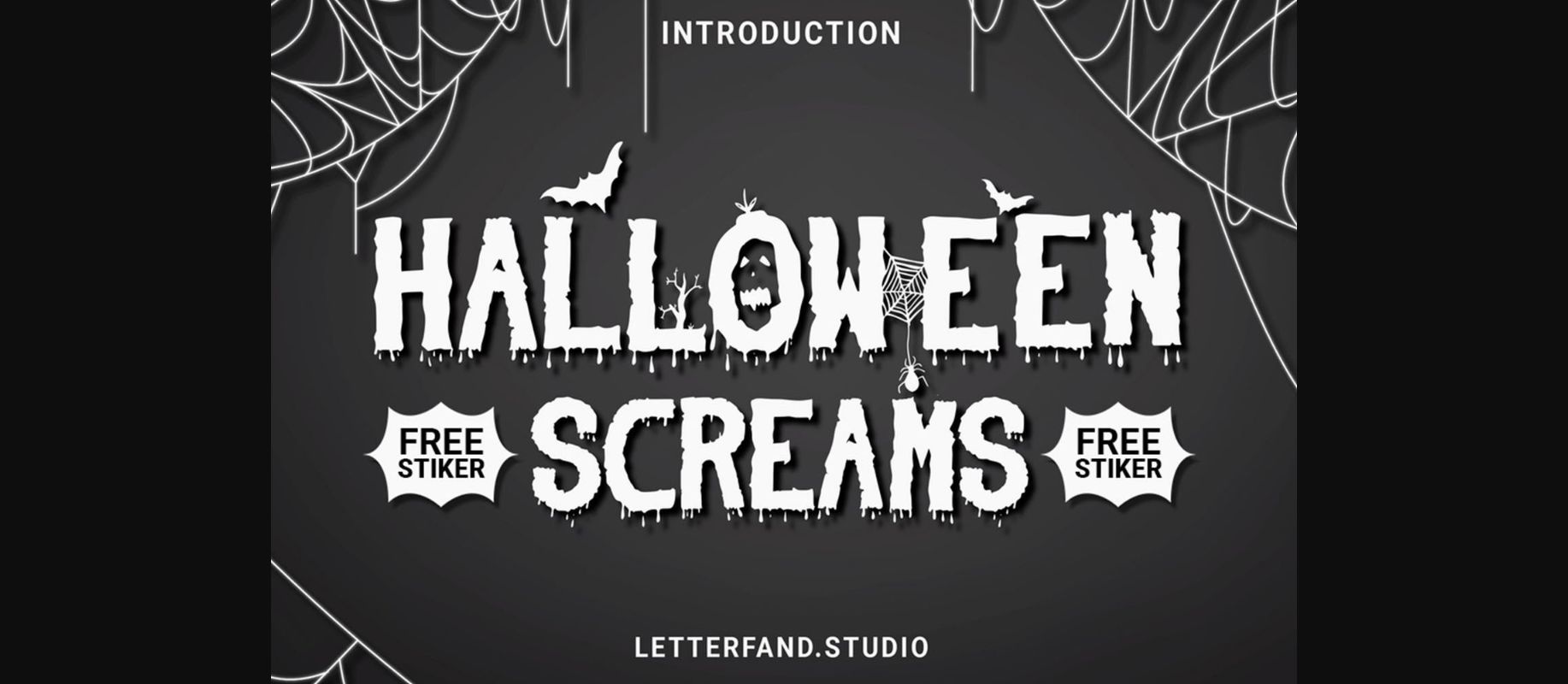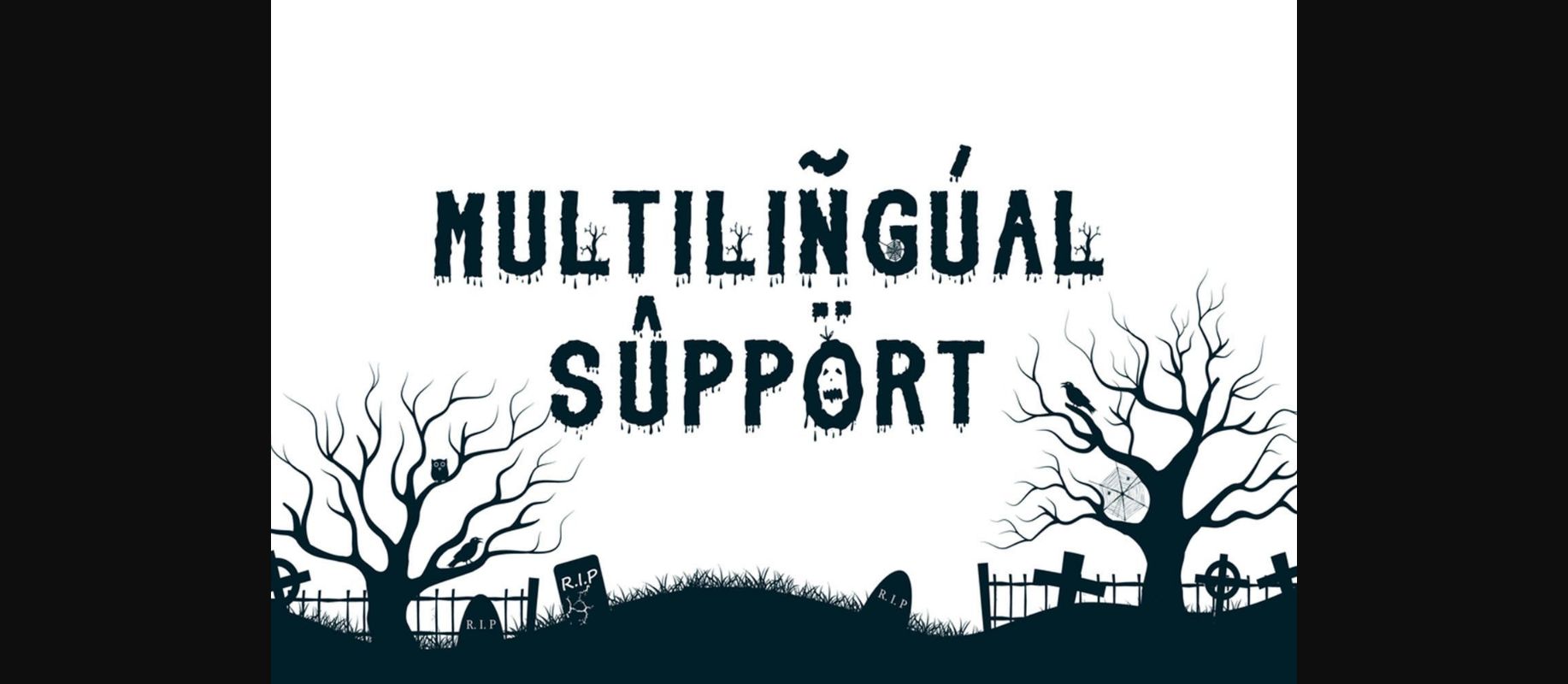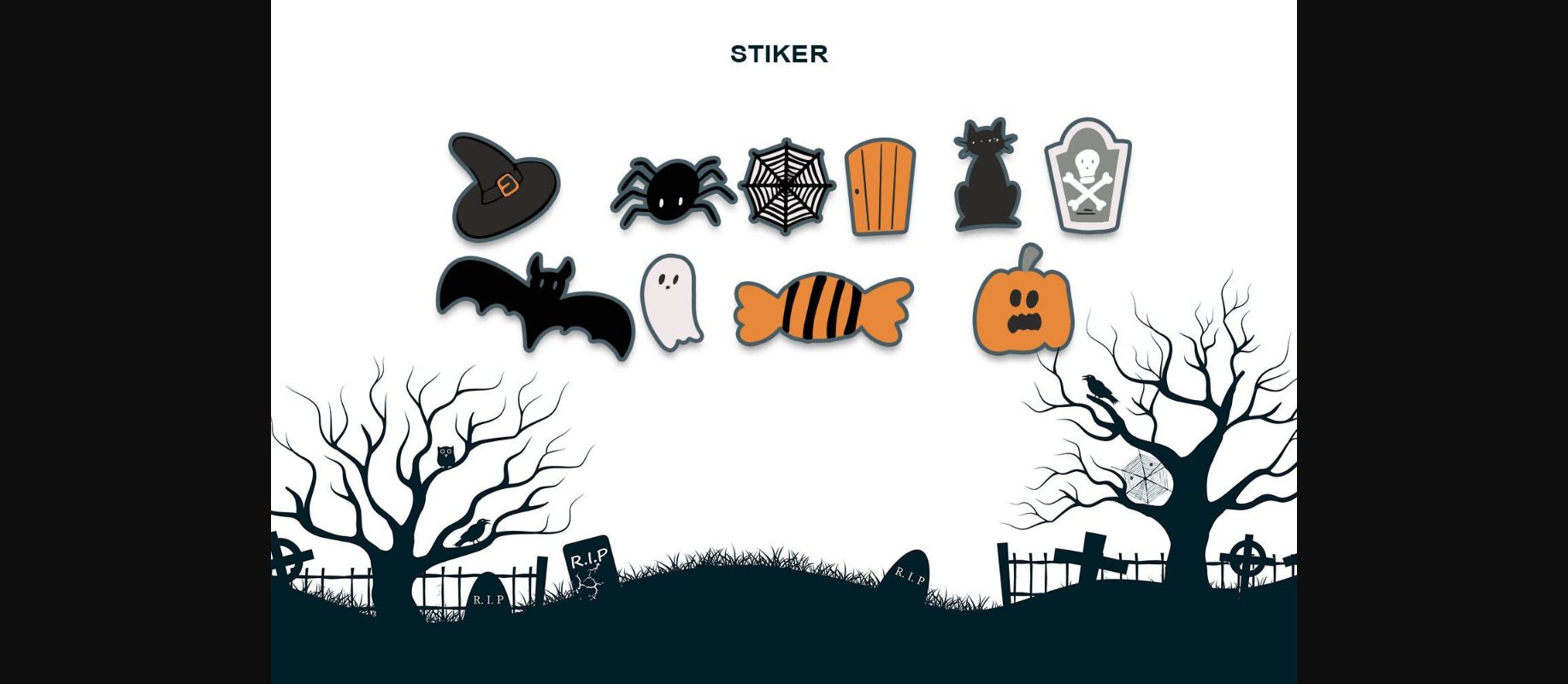
About Scream Halloween Font
Scream Halloween is a decorative font made in a modern style. It comes with a luxurious appearance that will make your designs attractive and perfect for Halloween.
In addition, this Halloween font is perfect for ad text, book covers, logos, mock-ups, watermarks, magazines, food designs, products, headers, coffee logos, brands, films, columns, videos, and so much more.